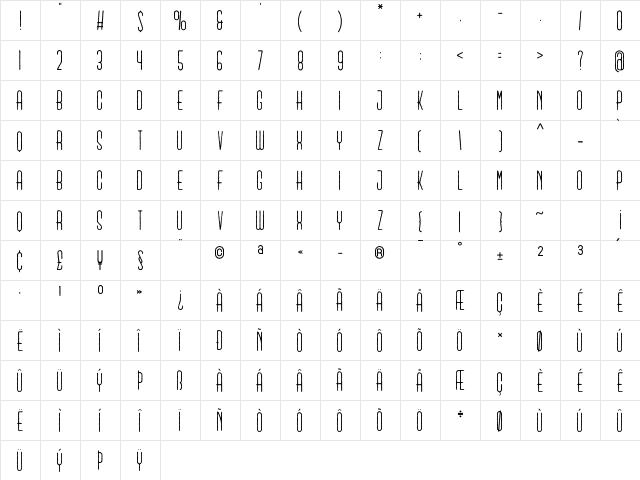
Kumachi Regular
| Designer | Ari Juanda |
Design Context for Kumachi Typeface
Kumachi takes a measured approach to typography — its balanced proportions and neutral character make it a reliable workhorse for both digital and print work.